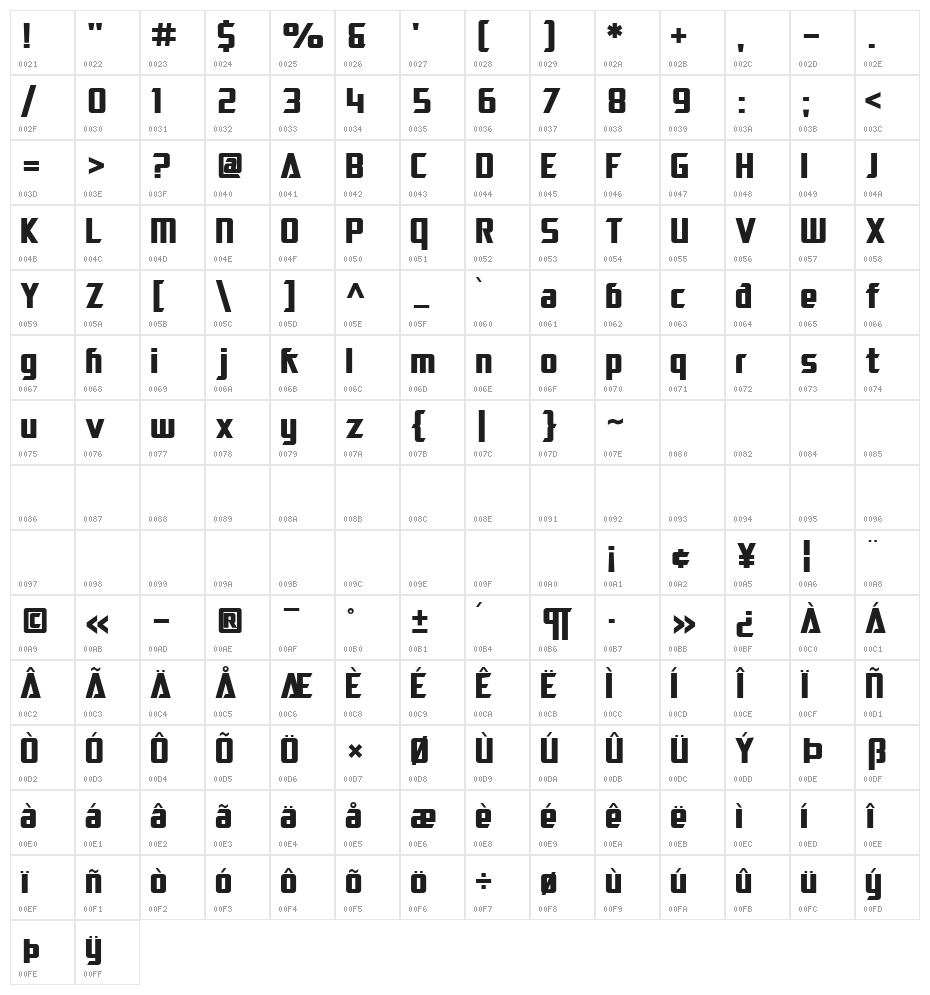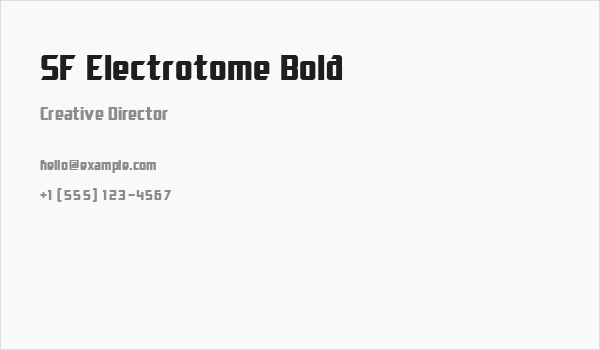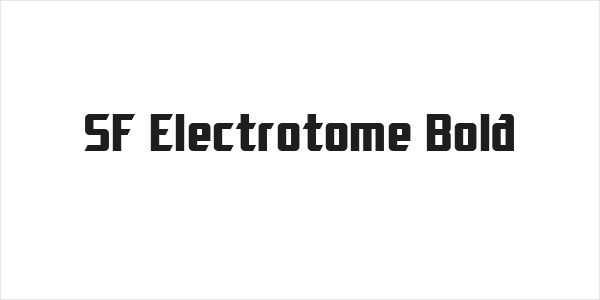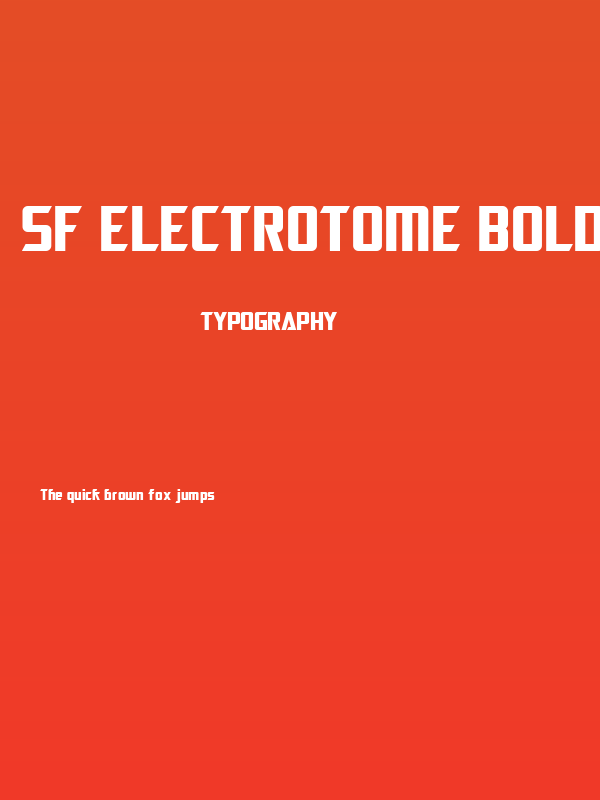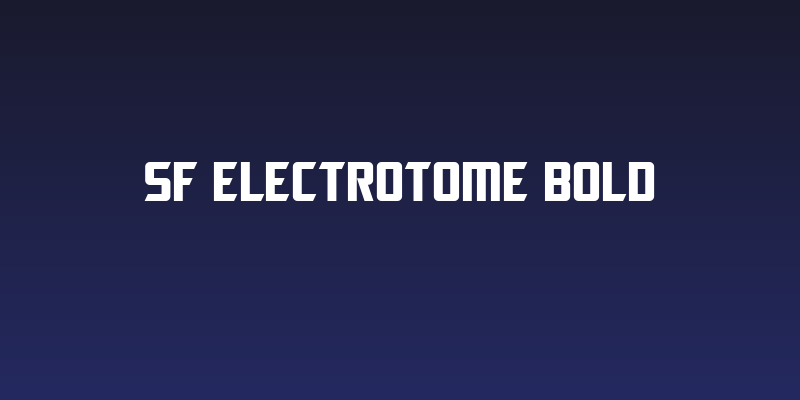
SF Electrotome Bold Font
SF Electrotome Bold Description
This font features a bold and geometric design with sharp angles and a futuristic aesthetic. The uppercase letters are particularly striking, with a strong presence and a sense of modernity. The lowercase letters maintain the same boldness, ensuring consistency across text. Numbers and special characters are designed to match the overall style, making them suitable for various uses. The font's uniform stroke width and lack of serifs contribute to its clean and streamlined appearance, ideal for projects that require a modern and impactful look.
| Proposed Projects | Ideal for technology branding, sci-fi themed projects, video game interfaces, and modern advertising. |